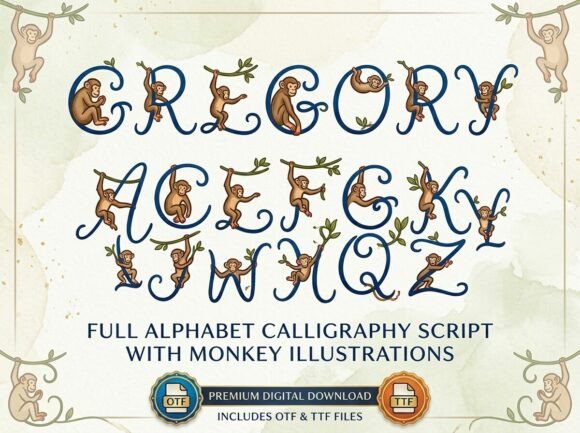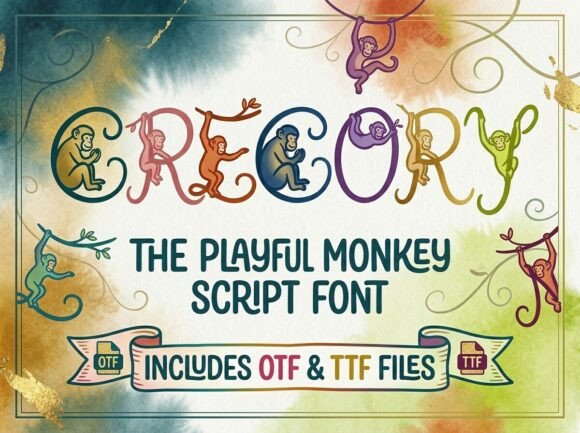
Introducing Gregory Font: The Ultimate Decorative Display Font
Are you tired of using the same old fonts in your designs? Look no further than Gregory Font, a stunning decorative display font that’s sure to turn heads. With its unique artistic elements and strong visual personality, this font is perfect for creators who want to break away from the ordinary and make a statement.
Gregory Font is designed to be the center of attention, and it certainly delivers. Its intricate details and creative letterforms make it ideal for high-impact designs where the typography needs to do the talking. Whether you’re designing a modern poster, a unique brand identity, or eye-catching social media content, this font adds an instant “wow” factor to any project.
One of the best things about Gregory Font is its versatility. It’s perfect for bold headlines, artistic logos, and creative packaging, while maintaining a professional and polished finish. This font can be used in a variety of design applications, including:
Poster Design
Create headlines that people can’t look away from with Gregory Font. Its unique and artistic elements make it perfect for posters, flyers, and other print materials. Whether you’re promoting a concert, a sale, or a new product, this font is sure to grab attention and leave a lasting impression.
Branding & Logos
Build a unique identity for creative businesses with Gregory Font. Its strong visual personality and intricate details make it perfect for logos, branding, and other visual identity materials. Whether you’re starting a new business or rebranding an existing one, this font is sure to help you stand out from the crowd.
Apparel & Merch
Perfect for T-shirts, hoodies, and tote bag designs, Gregory Font is a great choice for any apparel or merchandise project. Its bold and eye-catching design makes it perfect for creating unique and stylish designs that will appeal to anyone.
Social Media Content
Gregory Font is also perfect for social media content, including Facebook posts, Instagram captions, and Twitter headers. Its unique and artistic elements make it perfect for creating eye-catching and engaging content that will help you stand out from the crowd.
Why Choose Gregory Font?
So why choose Gregory Font over other decorative display fonts? Here are just a few reasons:
- Unique and Artistic Elements: Gregory Font features unique and artistic elements that set it apart from other fonts.
- Strong Visual Personality: This font has a strong visual personality that demands attention and makes a statement.
- Versatility: Gregory Font is versatile enough for a variety of design applications, from bold headlines to artistic logos and creative packaging.
- Professional and Polished Finish: Despite its bold and artistic design, Gregory Font maintains a professional and polished finish that’s perfect for any design project.
In conclusion, Gregory Font is a stunning decorative display font that’s perfect for creators who want to break away from the ordinary and make a statement. With its unique artistic elements, strong visual personality, and versatility, this font is ideal for high-impact designs where the typography needs to do the talking. Whether you’re designing a modern poster, a unique brand identity, or eye-catching social media content, Gregory Font is sure to add an instant “wow” factor to any project.